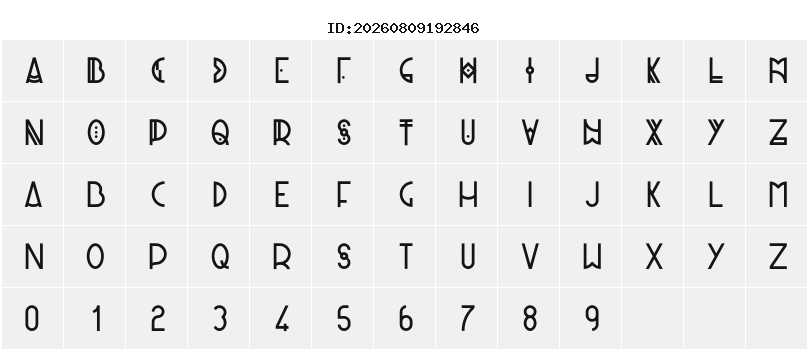
• Font Name: Panique
• Designer: Tommaso Poli
Panique.otf is a modern, elegant sans-serif font designed for ultimate readability and visual harmony. Perfect for branding, headlines, web design, and print materials.